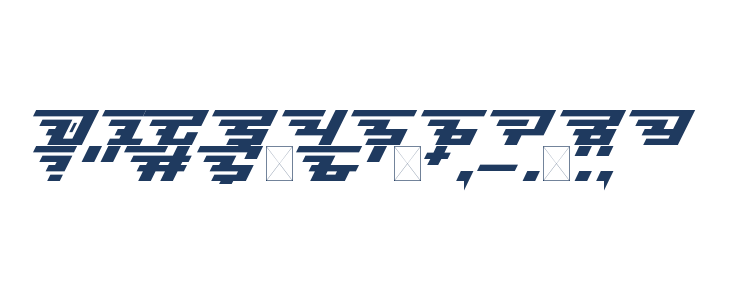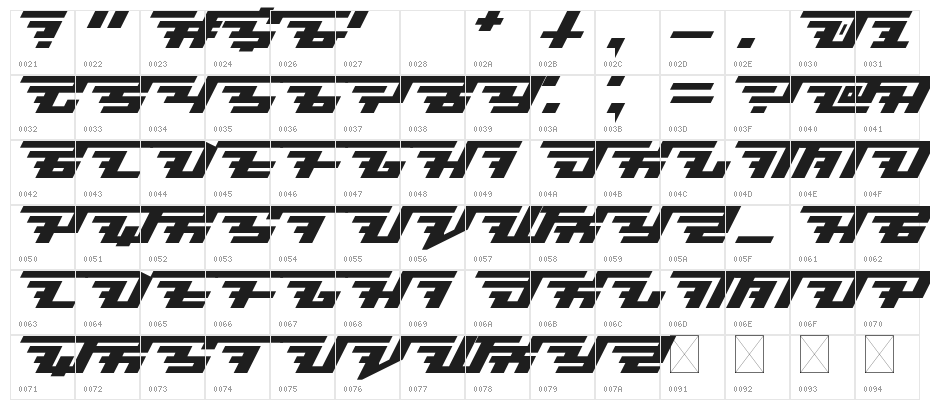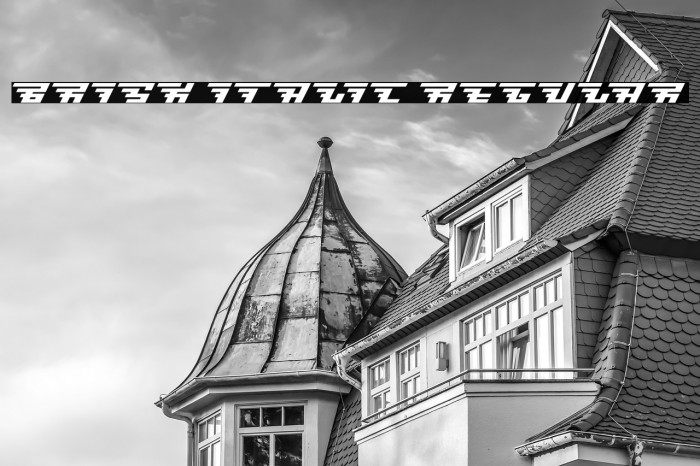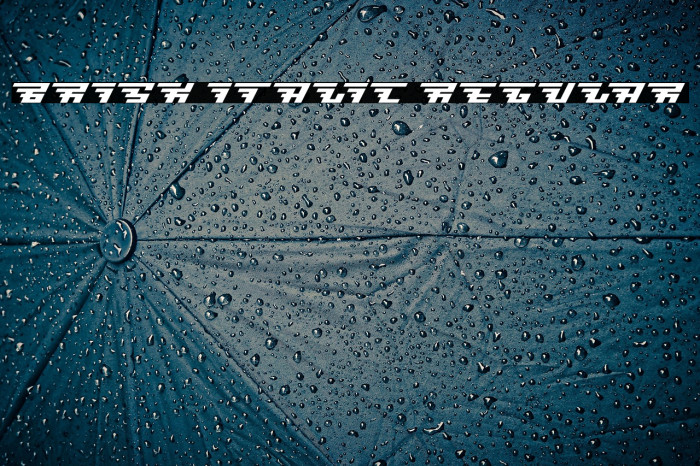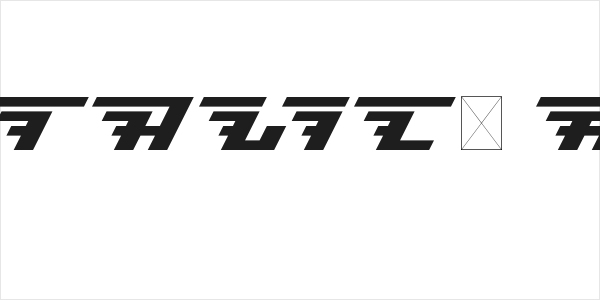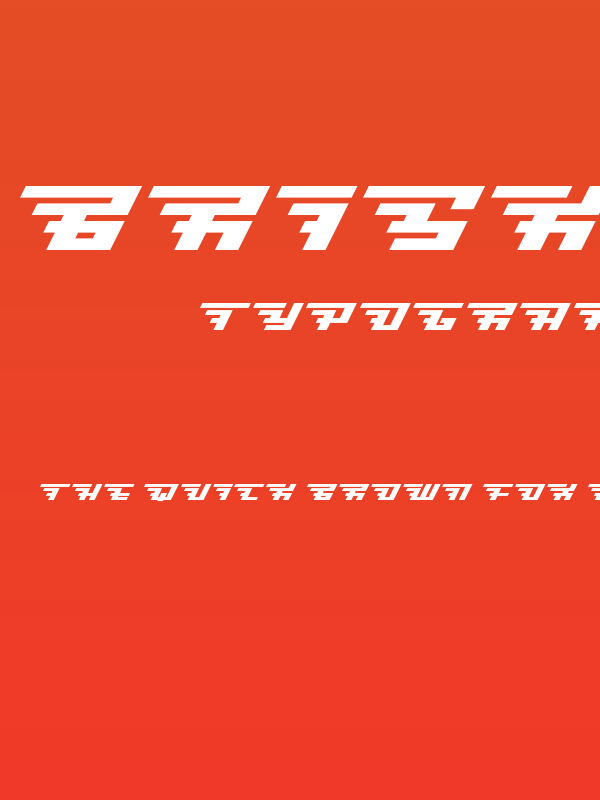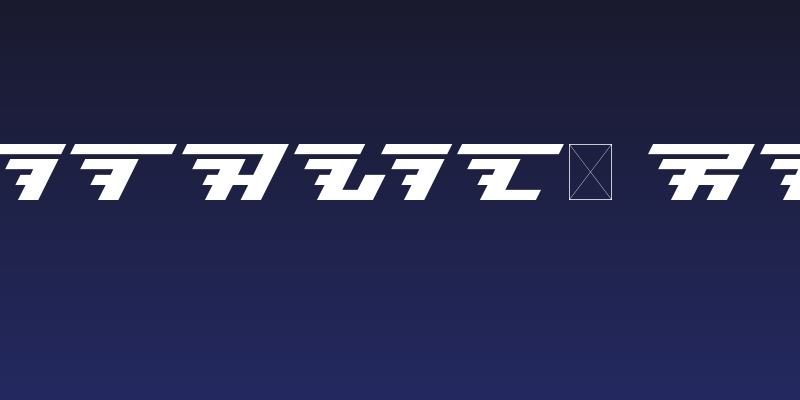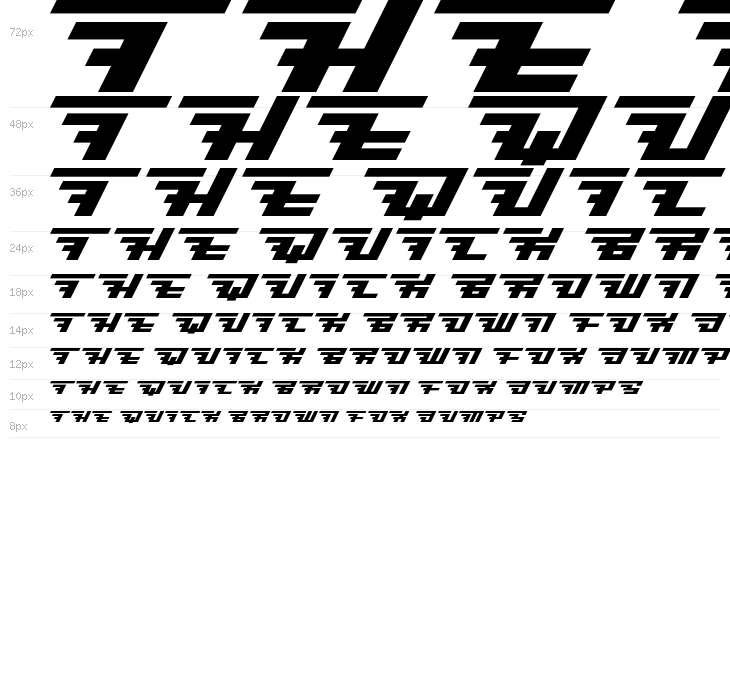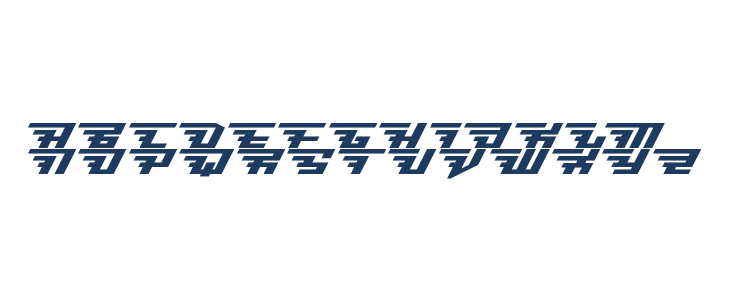
Brisk [italic] Regular Font
Brisk [italic] Regular Description
This font features a dynamic and angular design, characterized by sharp edges and a forward-leaning italic style. The letters are bold and impactful, with a futuristic and sporty aesthetic. The uppercase and lowercase characters maintain a consistent slant, enhancing the sense of motion and speed. The numbers and special characters follow the same stylistic cues, ensuring uniformity across all glyphs. The overall appearance is sleek and modern, making it suitable for projects that require a sense of energy and forward-thinking design.